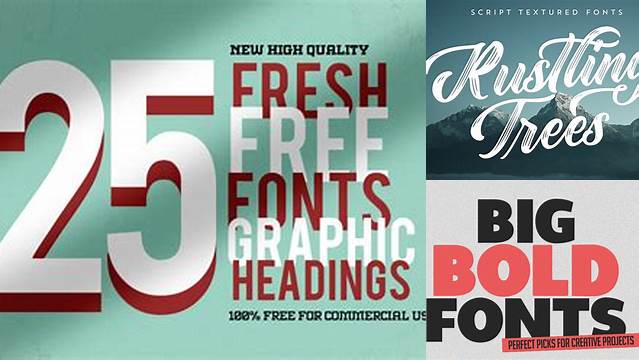
Poster Heading Fonts: The Ultimate Guide
Choosing the right font for your poster heading is crucial. It's the first thing people see, and it needs to grab their attention while also being readable. The right font can make your poster look professional, stylish, and engaging, while the wrong font can make it look amateurish and difficult to read. Finding that perfect font can sometimes feel like searching for a needle in a haystack, but fear not! This guide is here to help you navigate the world of typography and select fonts that will make your poster headings shine.
Why Font Choice Matters for Poster Headings
Font choice is paramount when it comes to designing a poster that effectively communicates its message. A well-chosen font can instantly convey the tone and style of your event or product. Think about it: a playful, cartoonish font would be perfect for a children’s party, but it would look completely out of place on a poster advertising a serious academic conference. Similarly, a sleek, modern sans-serif font might be ideal for a tech startup, but it wouldn’t be the best choice for a vintage-themed event. The font you select sets the mood and creates an initial impression, so you want to make sure it aligns with the overall theme of your poster.
Readability is another critical factor. Your poster heading needs to be easily readable from a distance, so avoid fonts that are too thin, overly decorative, or have unusual letterforms. Clarity is key. If people can’t quickly understand your heading, they’re likely to move on. Think about the context in which your poster will be displayed. Will it be in a brightly lit hallway, or a dimly lit bar? The font needs to be legible under those conditions. Consider the size of the font as well. A small, intricate font might look beautiful up close, but it will be lost on a poster that’s meant to be viewed from afar.
Beyond readability and tone, the right font can also enhance the overall design of your poster. A well-chosen font can create visual hierarchy, drawing the viewer’s eye to the most important information. It can also complement the other design elements, such as images, colors, and graphics, creating a cohesive and visually appealing composition. Experiment with different font pairings to see how they work together. Sometimes, contrasting a bold, attention-grabbing font with a simpler, more understated font can create a dynamic and engaging effect. Ultimately, the goal is to choose a font that not only looks good but also effectively communicates your message and enhances the overall impact of your poster.
Top Font Categories for Eye-Catching Poster Headings
Let's dive into the different types of fonts that work well for poster headings, giving you a solid foundation for making the right choice. When designing posters, especially for headings, consider exploring these font categories:
Serif Fonts: Classic Elegance
Serif fonts, with their small decorative strokes at the ends of letters, evoke a sense of tradition, authority, and elegance. They are a classic choice for poster headings, particularly when you want to convey a sense of sophistication or timelessness. Think about using serif fonts for posters related to historical events, literary readings, or high-end product launches. Some popular serif fonts for poster headings include:
- Times New Roman: While it might seem like a basic choice, Times New Roman can be surprisingly effective when used in a creative way. Try pairing it with a modern sans-serif font for a striking contrast.
- Garamond: Garamond is a beautiful and refined serif font that exudes elegance and sophistication. It’s a great choice for posters related to art, literature, or fashion.
- Baskerville: Baskerville is another classic serif font that is known for its readability and balanced proportions. It’s a versatile choice that can work well in a variety of contexts.
When using serif fonts for poster headings, it’s important to consider the weight and size of the font. A heavier weight will make the heading stand out more, while a lighter weight can create a more delicate and refined look. Also, pay attention to the spacing between the letters and lines to ensure readability.
Sans-Serif Fonts: Modern and Clean
Sans-serif fonts, which lack the small decorative strokes of serif fonts, are known for their clean, modern, and minimalist aesthetic. They are an excellent choice for poster headings when you want to convey a sense of innovation, simplicity, or modernity. Sans-serif fonts are particularly well-suited for posters related to technology, design, or contemporary art. Here are some popular sans-serif fonts for poster headings:
- Helvetica: Helvetica is a timeless and versatile sans-serif font that is known for its clean lines and readability. It’s a great choice for posters that need to be clear and concise.
- Arial: Similar to Helvetica, Arial is a widely used sans-serif font that is known for its legibility and neutral appearance. It’s a reliable choice for a variety of poster designs.
- Futura: Futura is a geometric sans-serif font that exudes a sense of modernity and sophistication. It’s a great choice for posters related to architecture, design, or technology.
When using sans-serif fonts for poster headings, consider the contrast between the font and the background. A high-contrast combination will make the heading stand out more, while a low-contrast combination can create a more subtle and understated look. Also, experiment with different font weights and sizes to find the perfect balance between readability and visual impact.
Script Fonts: Expressive and Artistic
Script fonts, which mimic the look of handwriting, are known for their expressive, artistic, and personal touch. They can add a touch of whimsy, elegance, or romance to your poster headings. However, it's important to use script fonts sparingly and with care, as they can sometimes be difficult to read. Script fonts are best suited for posters related to weddings, parties, or other special events.
- Brush Script: Brush Script is a casual and informal script font that is perfect for adding a personal touch to your poster headings. It’s a great choice for posters related to handmade crafts,DIY projects or artistic events.
- Lobster: Lobster is a bold and eye-catching script font that is perfect for making a statement. It’s a great choice for posters related to vintage themes, food, or entertainment.
- Pacifico: Pacifico is a friendly and approachable script font that is perfect for creating a welcoming and inviting atmosphere. It’s a great choice for posters related to beach themes, summer events, or casual gatherings.
When using script fonts for poster headings, make sure the font is legible and easy to read. Avoid using script fonts for long headings or body text, as they can be tiring to read. Also, be mindful of the kerning and leading to ensure that the letters are properly spaced.
Display Fonts: Unique and Bold
Display fonts are designed to be eye-catching and attention-grabbing. They often feature unique and unusual letterforms, making them perfect for poster headings that need to stand out. Display fonts can be used to convey a variety of different moods and styles, from playful and whimsical to bold and edgy. Some popular display fonts for poster headings include:
- Impact: Impact is a bold and condensed sans-serif font that is designed to grab attention. It’s a great choice for posters that need to make a strong statement.
- Bangers: Bangers is a comic-inspired display font that is perfect for adding a playful and energetic touch to your poster headings. It’s a great choice for posters related to comics, cartoons, or children’s events.
- ChunkFive: ChunkFive is a slab-serif display font that is known for its bold and blocky appearance. It’s a great choice for posters that need to convey a sense of strength and stability.
When using display fonts for poster headings, be mindful of the overall design of your poster. Display fonts can be overpowering, so it’s important to use them sparingly and in conjunction with simpler fonts. Also, pay attention to the color and background of your poster to ensure that the display font stands out.
Tips for Choosing the Perfect Font
Selecting the perfect font for your poster heading involves more than just picking one you like. It's about considering a range of factors to ensure your message is not only seen but also understood and resonates with your audience. Here are some essential tips to guide you through the selection process:
- Consider Your Audience: Think about who you are trying to reach with your poster. What are their interests, values, and expectations? A font that appeals to a young, hip audience might not be the best choice for a more mature, professional audience. Tailor your font selection to match the demographics and psychographics of your target audience.
- Define Your Message: What is the main message you want to communicate with your poster? Are you promoting a fun and exciting event, or a serious and informative presentation? The font you choose should reflect the tone and content of your message. A playful font might be suitable for a children’s party, but a more formal font would be better for a business conference.
- Think About Font Pairing: Combining different fonts can create visual interest and enhance the overall design of your poster. However, it’s important to choose fonts that complement each other, rather than clash. A good rule of thumb is to pair a serif font with a sans-serif font. For example, you could use a bold serif font for the heading and a clean sans-serif font for the body text.
- Test for Readability: Before finalizing your font choice, test it for readability at different sizes and distances. Print out a sample of your poster and see if the heading is easy to read from across the room. Also, consider the color contrast between the font and the background. A high-contrast combination will make the heading stand out more, while a low-contrast combination can create a more subtle look.
By following these tips, you can confidently choose fonts that will make your poster headings stand out and effectively communicate your message.
Font Resources and Tools
Finding and experimenting with fonts can be an exciting part of the design process. Fortunately, there are numerous resources and tools available to help you discover and utilize the perfect fonts for your poster headings. Here are some popular options:
- Google Fonts: Google Fonts is a free and open-source library of over 1,000 fonts that you can use in your projects. It offers a wide variety of font styles, from classic serifs to modern sans-serifs, making it a great resource for finding the perfect font for your poster headings. You can easily browse and download fonts from Google Fonts, and they can be used in both personal and commercial projects.
- Adobe Fonts: Adobe Fonts is a subscription-based service that offers access to thousands of high-quality fonts. It’s integrated with Adobe Creative Cloud, making it easy to use fonts in your design projects. Adobe Fonts offers a wide range of font styles, including exclusive fonts that you won’t find anywhere else.
- MyFonts: MyFonts is a commercial website that sells fonts from a variety of different foundries. It offers a wide selection of fonts, including unique and hard-to-find fonts. MyFonts also has a font identification tool that can help you identify fonts from images.
- FontPair: FontPair is a website that helps you find the perfect font pairings for your design projects. It offers a curated selection of font combinations that are designed to work well together. FontPair can be a great resource for finding inspiration and creating visually appealing poster designs.
Choosing the right font for your poster heading is a crucial decision that can significantly impact the effectiveness of your design. By understanding the different font categories, considering your audience and message, and utilizing the available resources and tools, you can confidently select fonts that will make your poster headings stand out and grab attention. Remember to prioritize readability, visual appeal, and consistency with your overall design aesthetic. With a little bit of research and experimentation, you can find the perfect font to elevate your posters and effectively communicate your message.